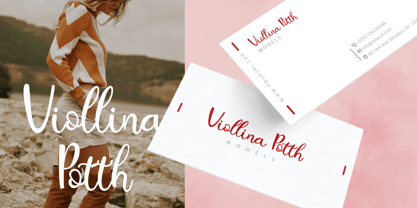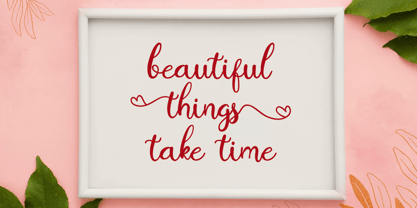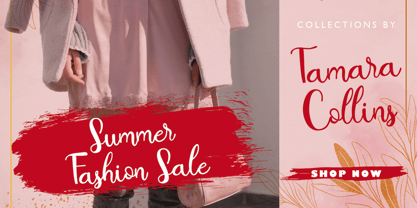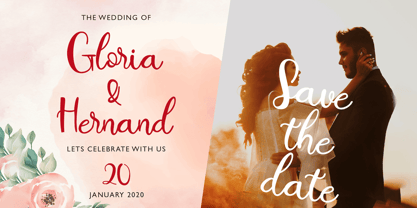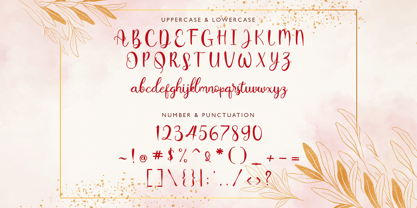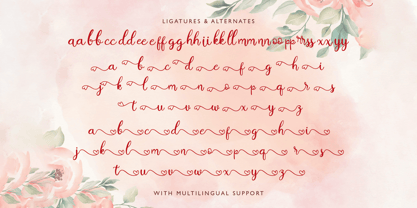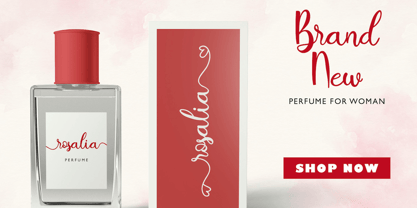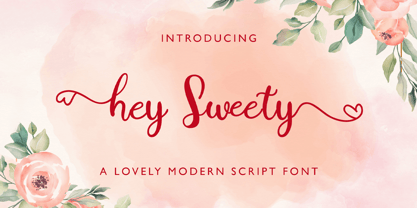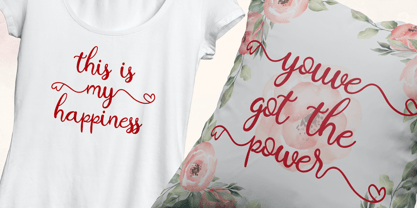
The Hey Sweet Font Family was designed by Virgiawan Listanto and published by Stringlabs Creative Studio. Hey Sweet contains 1 styles. More about this family
Hey Sweety is a stylish and elegant modern script font that adds a touch of sophistication and charm to any design. With its smooth, flowing letterforms and contemporary feel, Hey Sweety combines beauty with readability, making it perfect for projects that need a refined, yet playful touch.